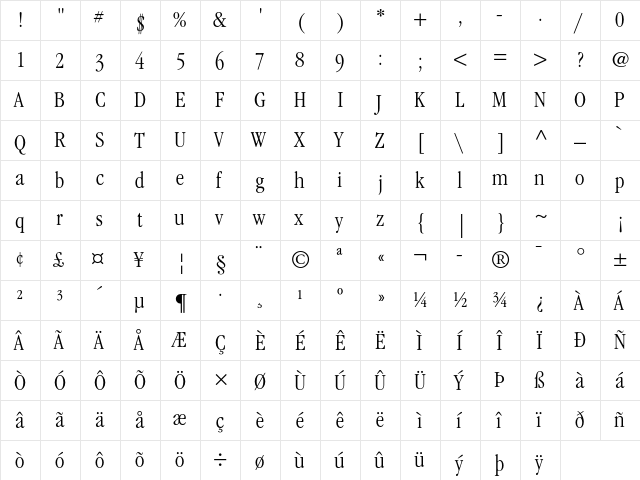
ITC Garamond Std Light Condensed
| Designer | Tony Stan |
Design Context for ITC Garamond Std Typeface
ITC Garamond Std offers clean, dependable letterforms without strong stylistic allegiance, making it a practical choice for designers who need flexibility. Its slender proportions lend an understated elegance to any composition. The condensed width makes it efficient for tight spaces without sacrificing legibility.